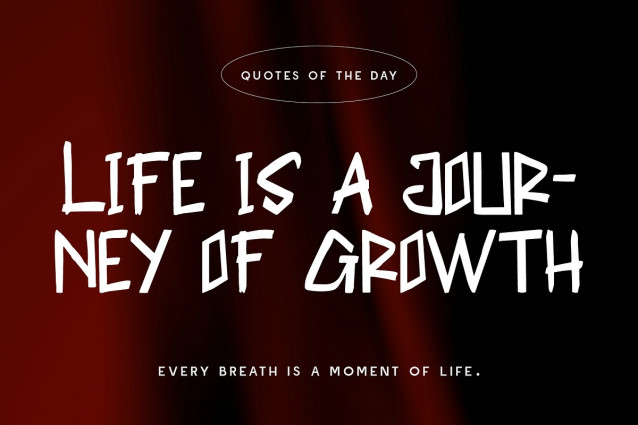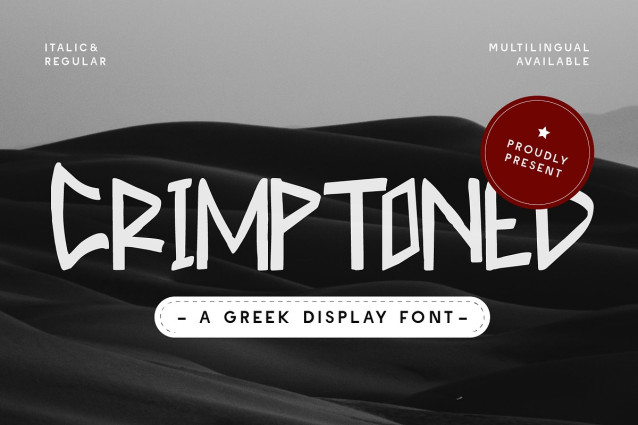
CF Crimptoned Font
CF Crimptoned Font – a Greek-inspired display font that blends ancient character with modern edge. With sharp, chiseled strokes and a raw, angular rhythm, this typeface channels the essence of classical stone carvings while keeping a rebellious, contemporary twist. Crimptoned is made for bold branding, ancient-meets-modern aesthetics, mythological themes, and designs that command a presence. Use it on posters, games, logos, or editorial layouts that dare to be different and timeless at once. Available in Regular and Italic styles, this font carries the strength of the ancients and the boldness of the future.